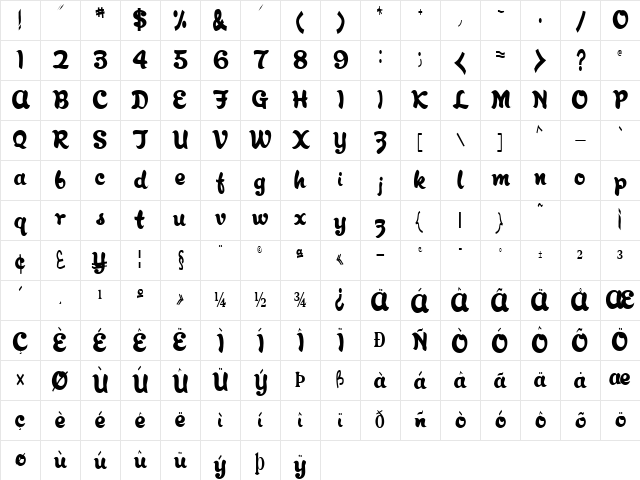
Abracadabra Regular Free Font
Abracadabra Regular
Abracadabra Family
Abracadabra Regular
Complete Abracadabra Regular glyph index. Displaying only characters natively supported by Abracadabra Regular font.
Design Context for Abracadabra
Abracadabra is a composed and adaptable typeface that performs quietly and consistently across a wide range of design contexts.